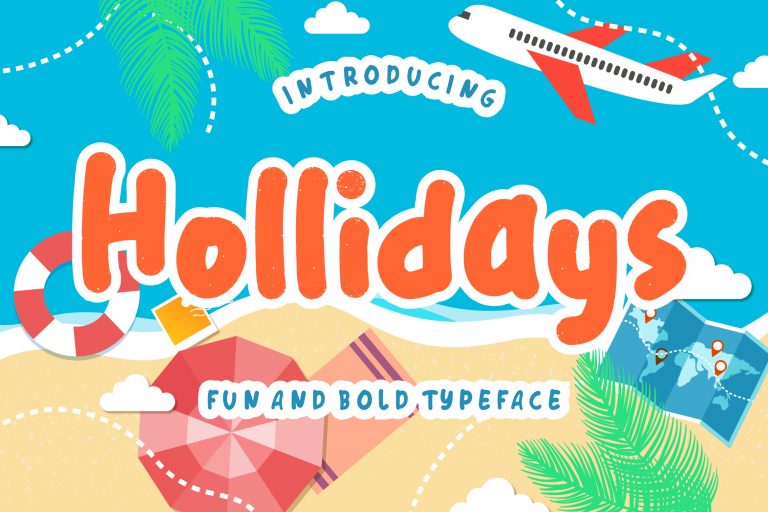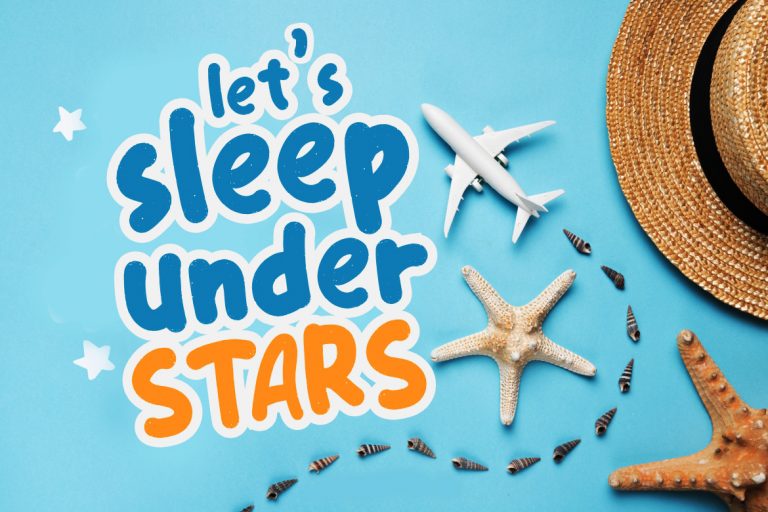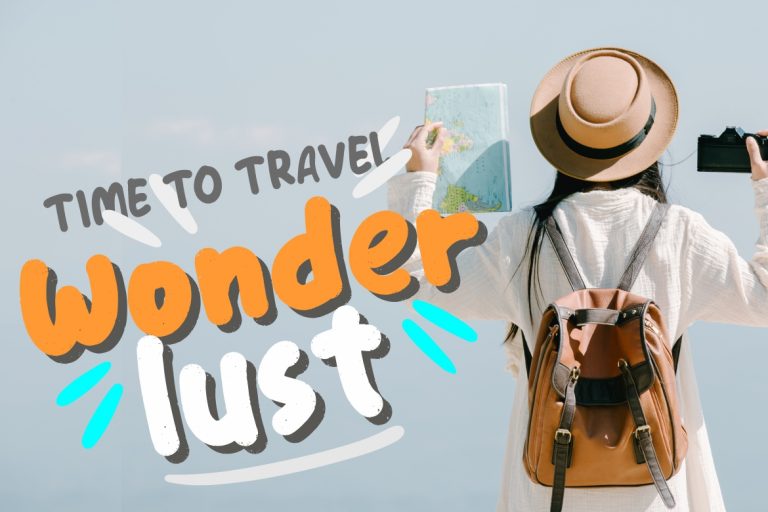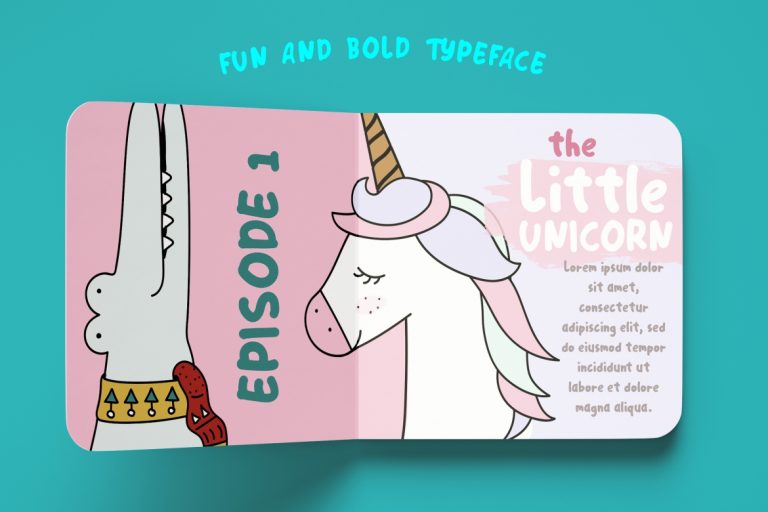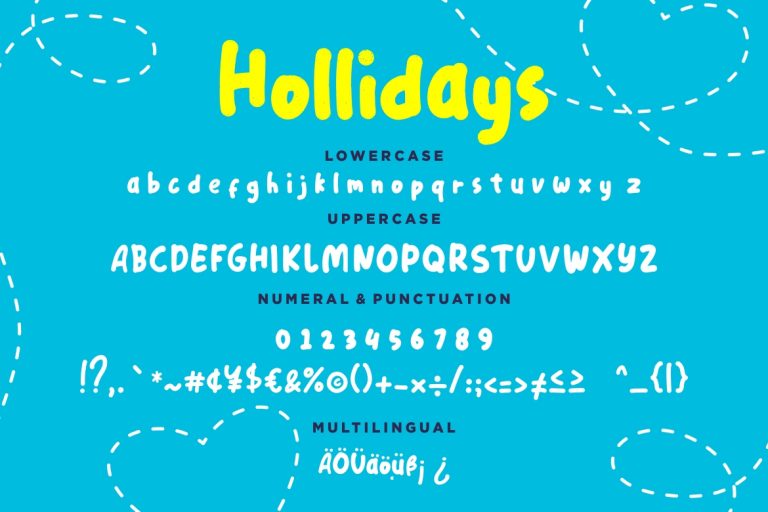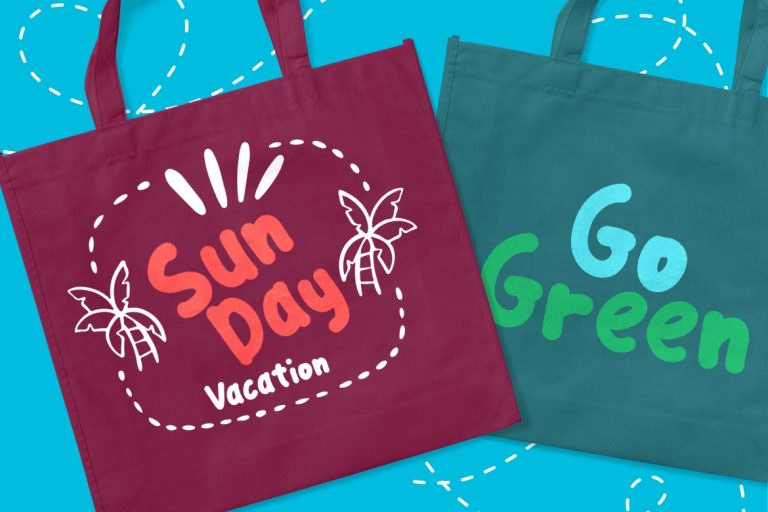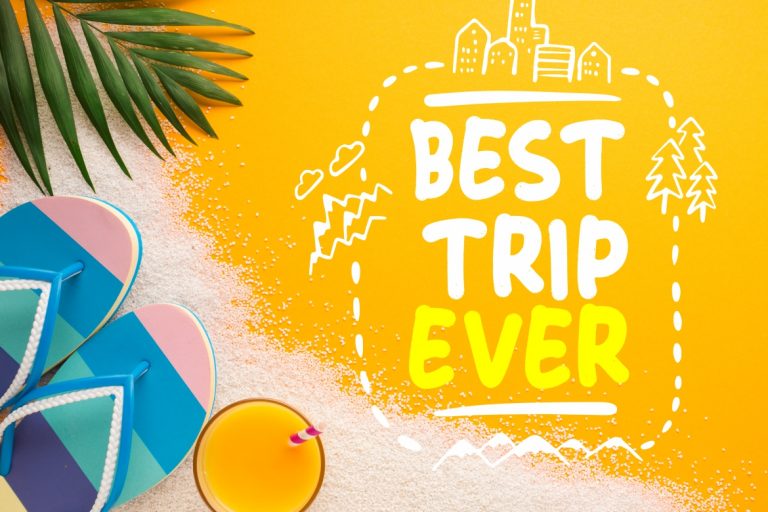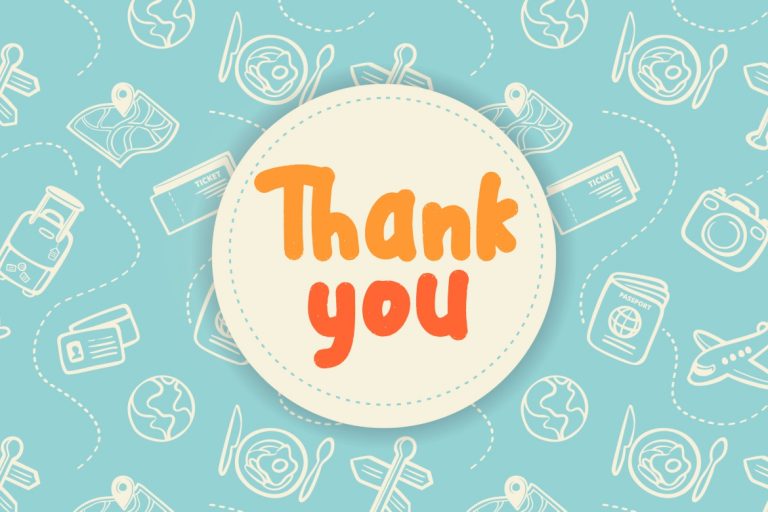
Hollidays is fun and bold typeface inspired by travelling and holiday activities.
Hollidays is perfect for branding projects, logo, wedding designs, social media posts, advertisements, product packaging, product designs, label, photography, watermark, invitation, stationery and any projects that need handwriting taste.
• Fonts include multilingual support for; ä ö ü Ä Ö Ü ß ¿ ¡
Hollidays Fun Children Typeface